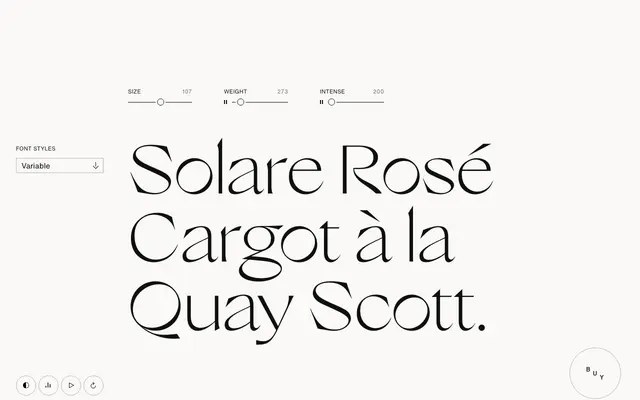
Solare
Nikolas Type · Nikolas Wrobel · 2024
A variable humanist sans from Nikolas Wrobel with five weights, matching italics, an 'Intense' stylistic axis and upright Japanese support, released after five years of development.
Spanning sixteen static styles plus variable fonts, Solare offers Fine through Black in both upright and italic, with an additional Intense variant that adds contrast and visual weight across the range. The family is built for broad application across editorial, branding and digital contexts, with 748 glyphs covering 32 languages including Latin Extended and Japanese. A collection-exclusive display variant, Solare Sunset, is available to buyers of the full package.
Solare blends sans and serif characteristics in a fluid, expressive manner that leans toward humanist sans, with optical warmth and calligraphic influence evident across its weight range and italic styles.